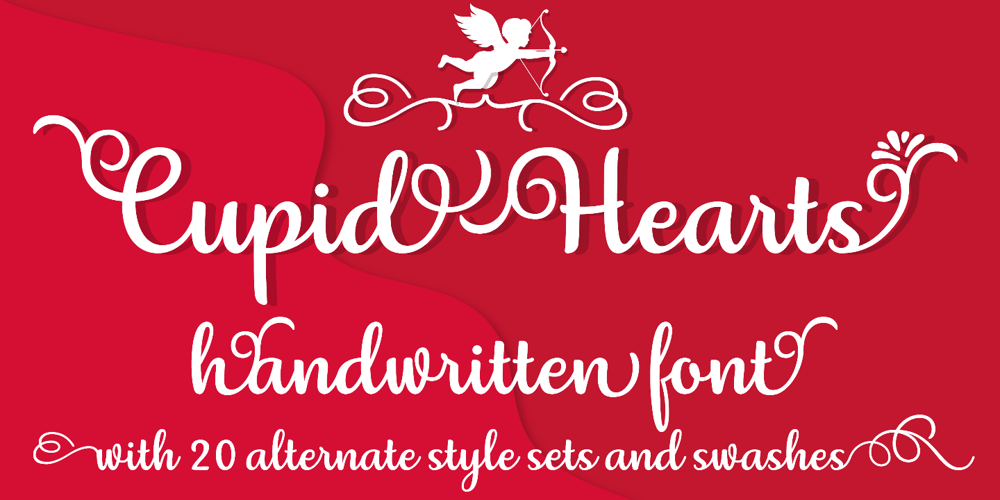
Cupid Hearts Font Family was designed by Oussama Horchani and published by OzType.. Cupid Hearts contains 1 styles and family package options. Cupid Hearts is a hand written script, first drawn on paper and then remastered on the computer to give a smooth free flowing script,that looks perfect over the top of photos or as a logo.With 20 alternate style sets this lovely and friendly typeface take the stress out of finding fonts that match together so you can focus on what you want to do which is designing beauty work.